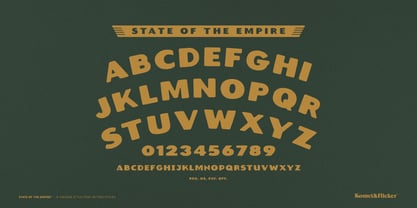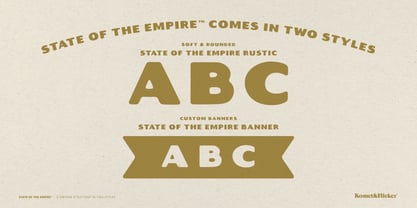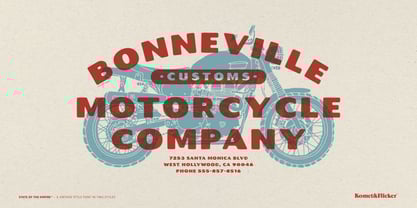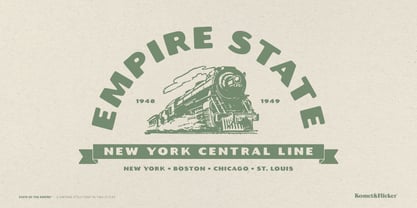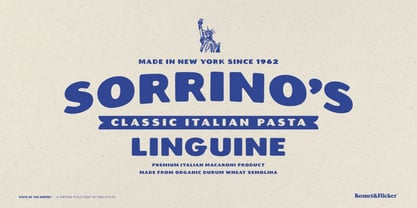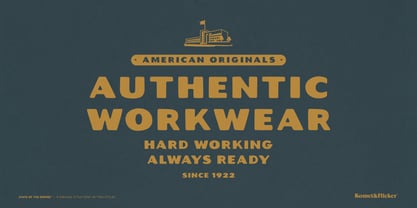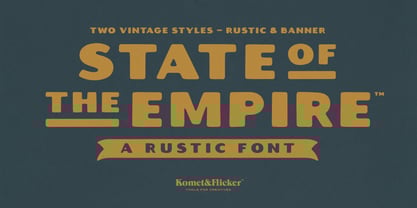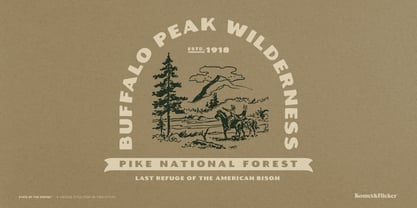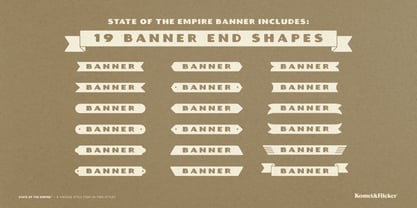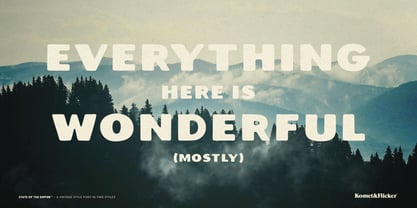
State of the Empire
The State of the Empire Font Family was designed by David Phillips and published by Komet & Flicker. State of the Empire contains 2 styles and family package options. More about this family
Empire State is a rustic, vintage-inspired all caps typeface with a well-worn charm that lends a sense of authenticity to your designs. Perfectly imperfect, its rugged hand-drawn characters makes it ideal for branding, packaging, signage, and any project that calls for a timeless handcrafted feel.
The font comes in two versatile styles: Rustic, with its weathered letterforms that capture the spirit of old print and hand-painted signs, and Banner, a unique style that lets you create custom banners on the fly. With 19 different banner end shapes, you can mix and match to build tailor-made headers and accents that stand out with bold personality.
And to elevate your creative work even further, Empire State includes a special set of 20 custom connecting words. Mix and match these additions to enhance the flow of your typography, ensuring that your designs feel cohesive and polished.
THIS FONT COMES IN TWO STYLES
- Empire State Rustic
- Empire State Banner
THIS FONT INCLUDES
- Full A-Z uppercase basic latin characters
- Select European specific characters
- Numbers, punctuation, and select symbols
- Two styles of pre-made common fractions
- Set of 20 custom connecting word glyphs